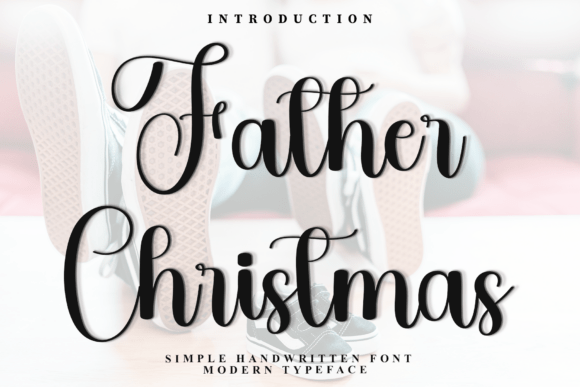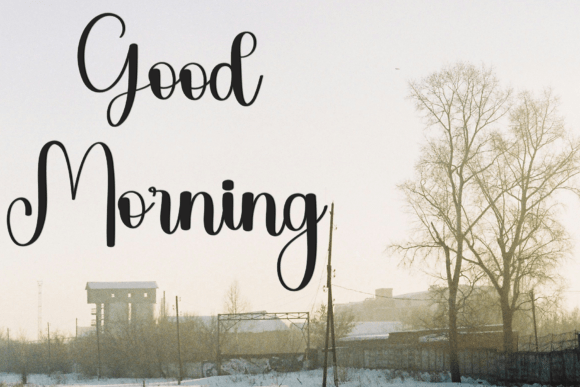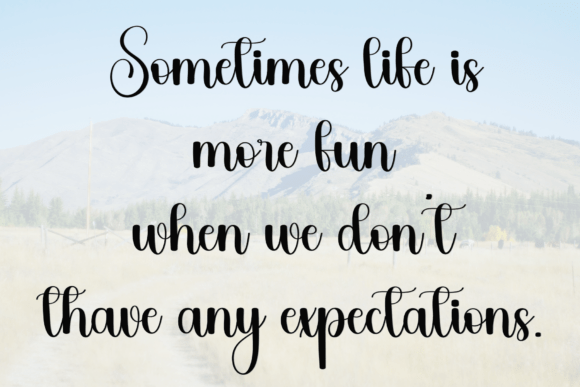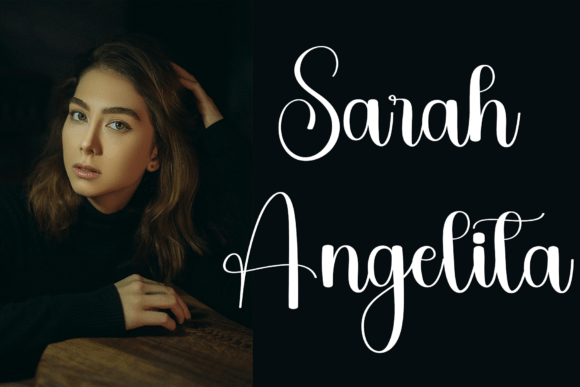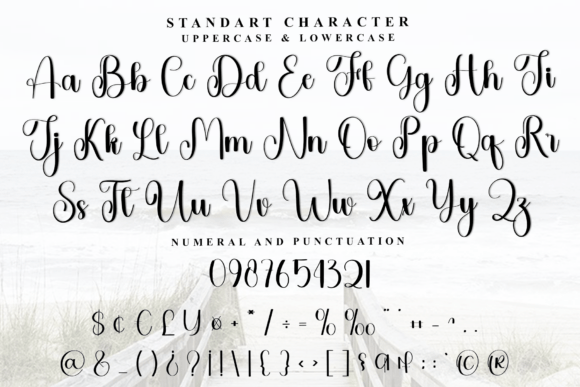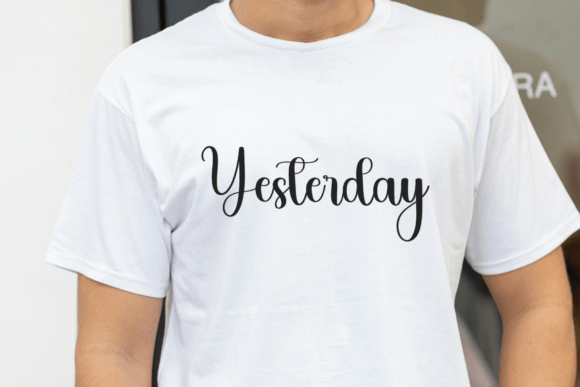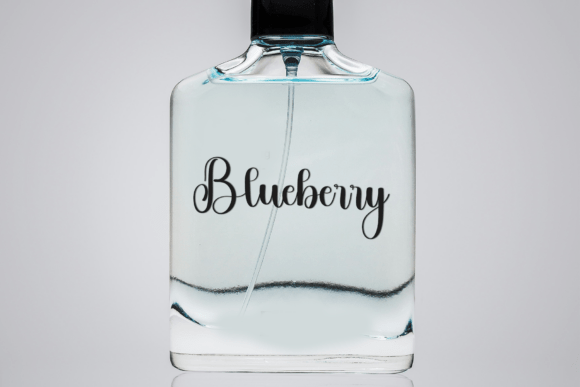
Meet the Jolly Font that Brings Holiday Cheer to Your Designs
Do you remember the moment when you stumbled upon the perfect font that made your design project stand out? For many of us, it’s a moment of pure joy and excitement. And today, we’re excited to introduce you to a font that’s sure to bring that same magic to your work – the Father Christmas Font.
Designed with a soft, unique touch, the Father Christmas Font is a beautiful and eye-catching typeface that’s perfect for design projects, crafts, and other creative works. With its distinctive strokes, it adds a special character to any design, making it meaningful and versatile for future use. Whether you’re a seasoned designer or a creative enthusiast, this natural font style is sure to enhance your designs and make them appealing to a wide range of audiences.
Father Christmas Font Key Features
- Unique Characteristics: The Father Christmas Font features a distinctive, hand-drawn design with bold lines, festive colors, and a playful feel, making it perfect for holiday-themed designs and projects.
Designer Review: Father Christmas Font
The Father Christmas font is an eye-catching, festive font designed to capture the essence of the holiday season. ✨ One of its standout features is its playful, childlike feel, which would be perfect for holiday-themed projects like greeting cards or festive invitations. The font’s bold lines and rounded edges give it a charming, whimsical touch that’s sure to put a smile on anyone’s face.
Another advantage of this font is its versatility. ✨ It can be used in a variety of contexts, from digital displays to print materials, and its bold style ensures it will always be visible, even in crowded or busy designs.
However, there are a few limitations to consider. ⚠️ For one, the font’s bold style can sometimes feel overwhelming or difficult to read, especially in smaller text sizes. Additionally, some characters may not be as well-designed as others, which can disrupt the overall flow of a design.
Design Limitations:
- Some characters may not be as well-designed as others
- Bold style can be overwhelming or difficult to read in smaller text sizes
Overall, I think the Father Christmas font is a fun and creative addition to any holiday-themed project. While it may have some limitations, its playful feel and versatility make it a great choice for designers looking to add a touch of festive cheer to their work.
The Father Christmas font is perfect for creating festive designs, such as Christmas cards, gift tags, and holiday-themed social media posts. You can also use it to add a touch of whimsy to your branding or marketing materials.